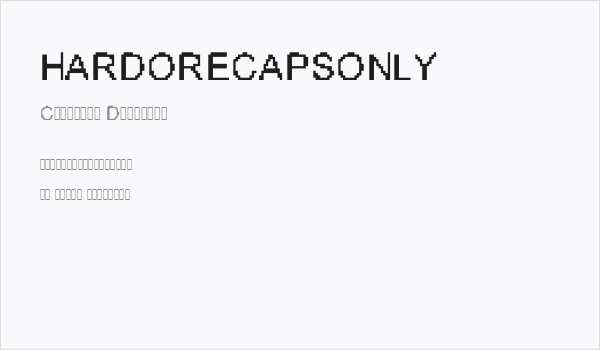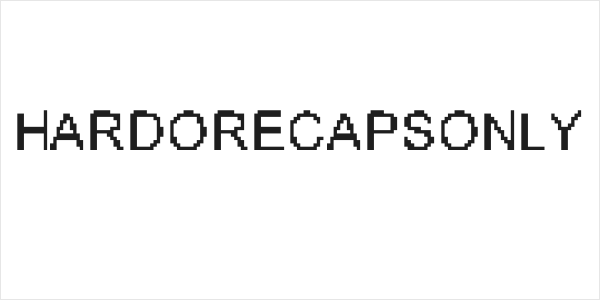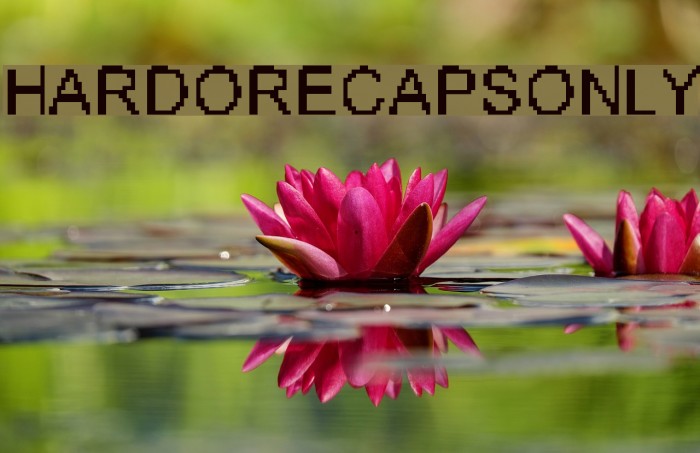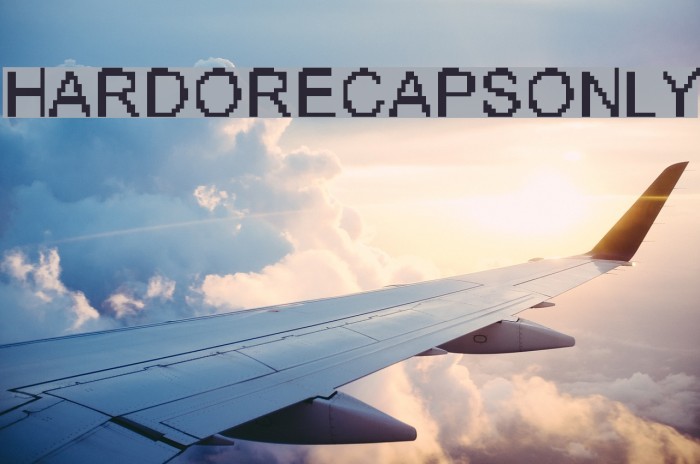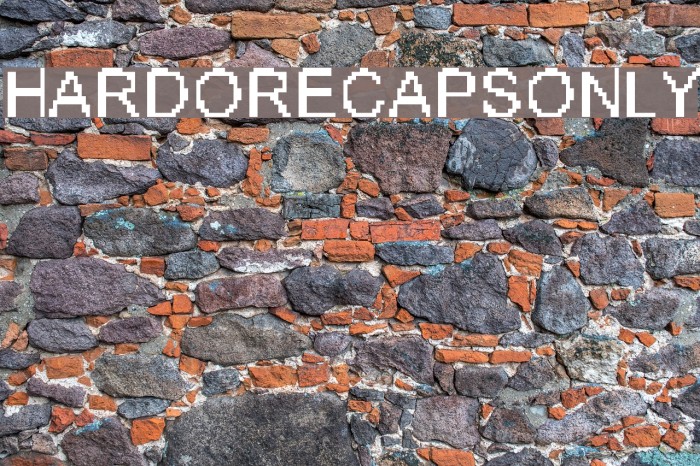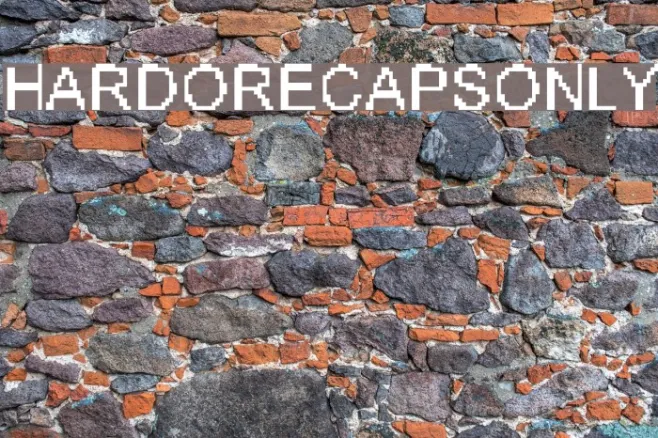
HARDORECAPSONLY Font
HARDORECAPSONLY Description
This font features a bold, geometric design with a strong emphasis on straight lines and sharp angles. The uppercase letters are uniform in height, creating a cohesive and structured appearance. The absence of lowercase letters and numerals suggests a focus on simplicity and clarity. The font's blocky style is reminiscent of digital or pixelated text, making it suitable for modern, tech-oriented designs. Its clean and minimalistic approach ensures readability while maintaining a distinctive and striking visual impact.